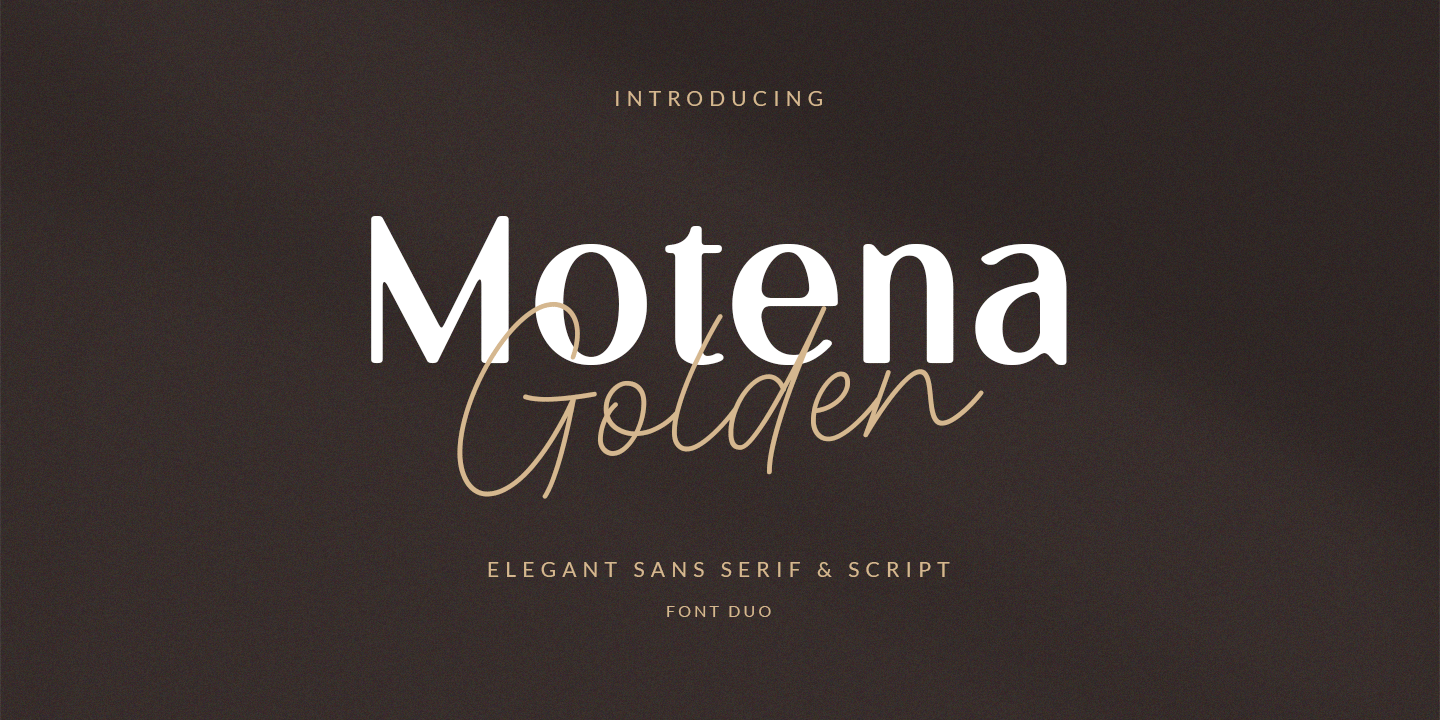
Motena Golden Font excels in luxury jewelry branding, premium cosmetic packaging, golden anniversary celebrations, high-end fashion campaigns, exclusive award ceremonies, opulent wedding invitations, prestige hotel communications, elite membership materials, golden hour photography watermarks, and affluent lifestyle marketing. Its golden character makes it perfect for projects requiring supreme luxury and precious metal sophistication that radiates wealth and exclusivity.
What makes Motena Golden Font exciting is its magnificent ability to embody the lustrous beauty and timeless value of pure gold through letterforms that shimmer with precious metal elegance and aristocratic refinement. The font features luxurious curves with gilded proportions that capture the warm radiance of gold while maintaining exceptional readability for luxury communications. Its golden character transforms ordinary text into declarations of supreme quality that inspire desire for the finest things in life.
The Motena Golden Font family includes Regular, Bold, Light, Gilded, Precious, Luxe, and Opulent variations. Each style preserves the font's golden essence while offering different levels of luxury intensity and precious weight for creating authentic high-end graphics. The comprehensive character set includes luxury symbols, golden ornaments, precious decorations, and opulent glyphs essential for genuine luxury and premium typography projects.
Luxury retailers and premium brands consistently choose Motena Golden Font Free Download for projects demanding exceptional golden typography solutions. The font's precious character instantly establishes luxury credibility while ensuring elegant communication across affluent marketing channels. Its versatility spans from subtle golden touches to bold statements that celebrate the eternal human fascination with gold and the exclusive lifestyle it represents.
Whether you're developing luxury brand identities, creating premium marketing materials, or designing opulent communications, Motena Golden Font provides the perfect combination of golden authenticity and contemporary functionality. The font's preciously crafted letterforms ensure genuine luxury character while maintaining excellent performance across various high-end applications and exclusive business communications.
The precious heritage of Motena Golden Font makes it exceptional for creating aspirational connections with audiences who appreciate the finest luxuries and golden excellence. Its gilded precision and opulent appeal work seamlessly across traditional luxury materials and modern digital prestige platforms. The font performs magnificently in both large-scale luxury displays and intimate exclusive communications.
Illuminate with golden elegance using Motena Golden Font and discover how authentic precious metal typography can enhance your luxury projects with genuine golden appeal and opulent sophistication. This remarkable typeface combines golden tradition with contemporary functionality, making it indispensable for luxury brands seeking to capture the eternal allure and precious value of pure gold.